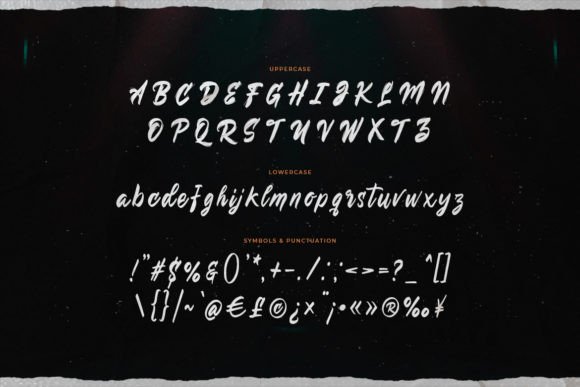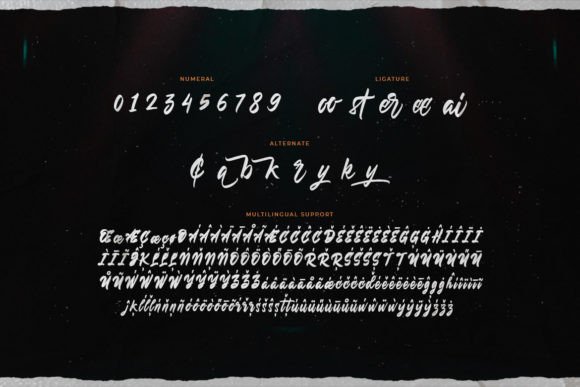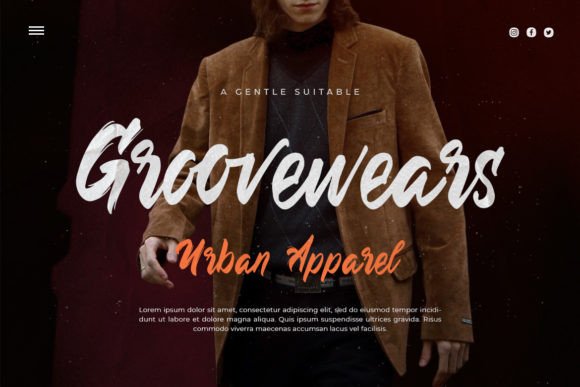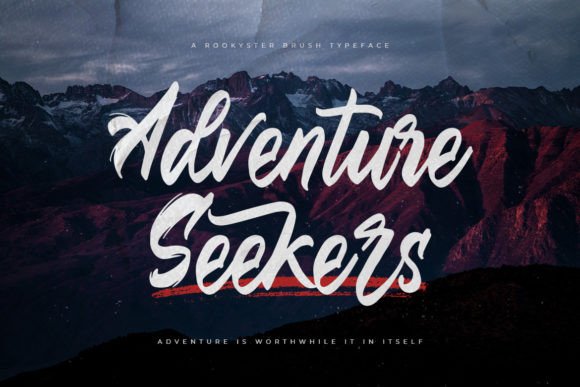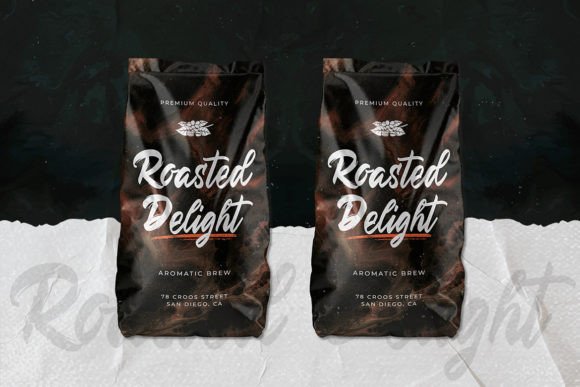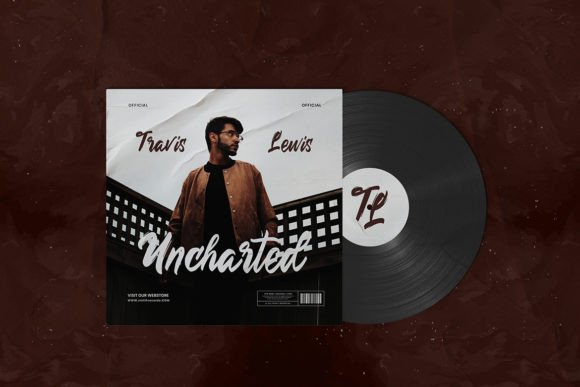
Introduction to Rookyster Font
Have you ever been working on a creative project, pouring your heart and soul into it, only to feel like something’s missing? A key element that brings your design to life and gives it that extra oomph? For designers, finding the perfect font can be the game-changer we’re all searching for.
Enter the Rookyster Font – a stunning handbrush script font that’s about to revolutionize your design game. With its modern feel and striking touch, this high-quality font is perfect for branding materials, quotes, book covers, logos, posters, and much more!
What sets the Rookyster Font apart is its versatility and unique character. Whether you’re working on a free download or a paid project, this font is sure to elevate your design to new heights. Plus, with its transparent background, it’s easy to incorporate into any design resource, making it a valuable asset for designers of all levels.
Key Features of Rookyster Font
- High-quality design: Rookyster Font is a premium font that offers a unique and stylish look perfect for creative projects.
- Perfect for creative projects: The Rookyster Font is ideal for use in creative projects such as logos, branding, and typography-based designs.
- Unique characteristics: The Rookyster Font features a unique and modern design that sets it apart from other fonts, making it a great choice for designers looking to add a touch of elegance to their work.
Honest Review: Rookyster Font
I recently stumbled upon the Rookyster Font, and I must say it’s a great addition to any design resource library. As a designer, I’m always on the lookout for high-quality fonts that can elevate my creative project to the next level.
What works well about the Rookyster Font is its versatility. It comes in a range of styles, from bold to light, making it perfect for a variety of design applications. I particularly love that it’s available for free download, which is a huge plus for designers on a budget.
One of the standout features of this font is its transparent background, which makes it easy to use in any design scenario. Whether you’re creating a logo, brochure, or social media graphic, the Rookyster Font is sure to deliver.
Here are some of the key features that I love about the Rookyster Font:
- Range of styles available
However, I do have one minor issue with the Rookyster Font: it’s not as extensive as some of the other font libraries out there. ⚠️ The selection of styles and languages is limited, which may be a drawback for some designers.
Overall, I’m really impressed with the Rookyster Font. It’s a great addition to any design library, and I’d highly recommend it for any creative project. ✨
Use the Rookyster Font in a creative project, such as a logo or branding materials, to add a unique touch. Experiment with different font sizes and colors to achieve the desired effect.
The Rookyster Font is ideal for use in various design projects, including: